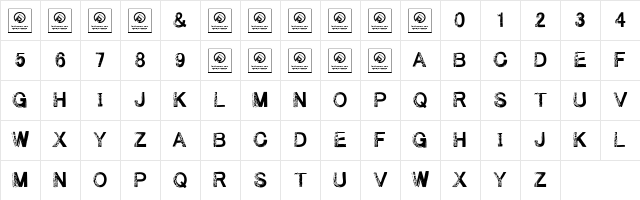
Under Your Bed Regular
Foundry: Font Monger
Designer: Chris Vile
Design Context for Under Your Bed
Under Your Bed is a composed and adaptable typeface that performs quietly and consistently across a wide range of design contexts.